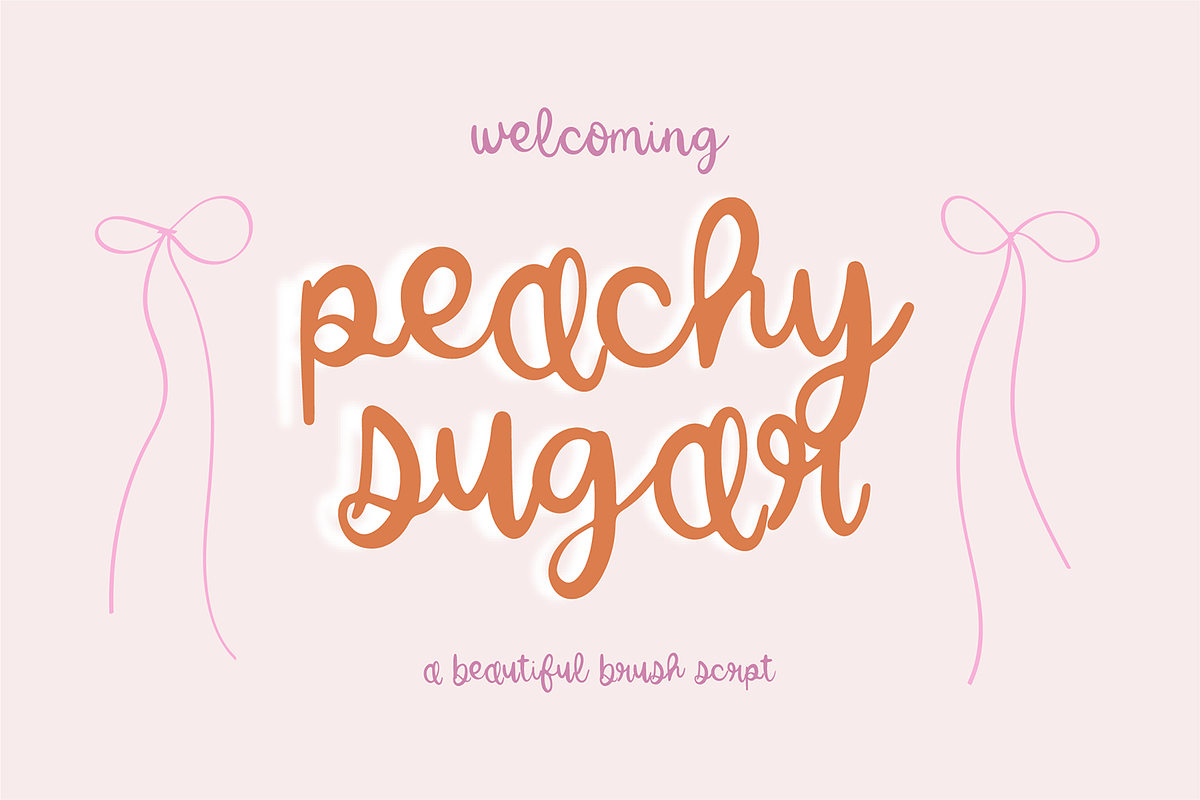
PEACHY SUGAR Brush Script Font Free Download
PEACHY SUGAR Brush Script Font Free Download is a lively and expressive brush script typeface that captures the energy and fluidity of hand-painted lettering. With its bold strokes, playful curves, and organic texture, this font is perfect for logos, greeting cards, social media graphics, product packaging, and any project that calls for a fun, dynamic feel.
Its flowing design adds a personal, artistic touch to your typography, making it ideal for designs that need a creative and approachable vibe. Whether you're creating a modern brand identity or a unique invitation, PEACHY SUGAR brings charm and character to every letter.